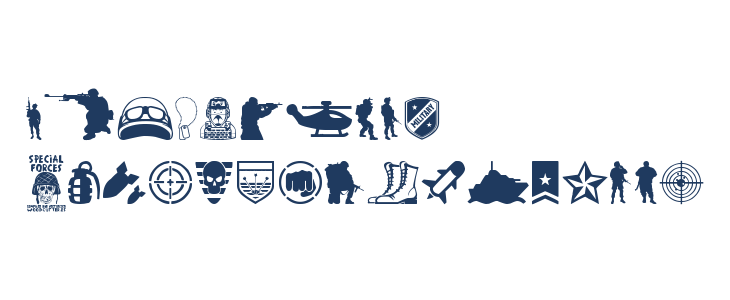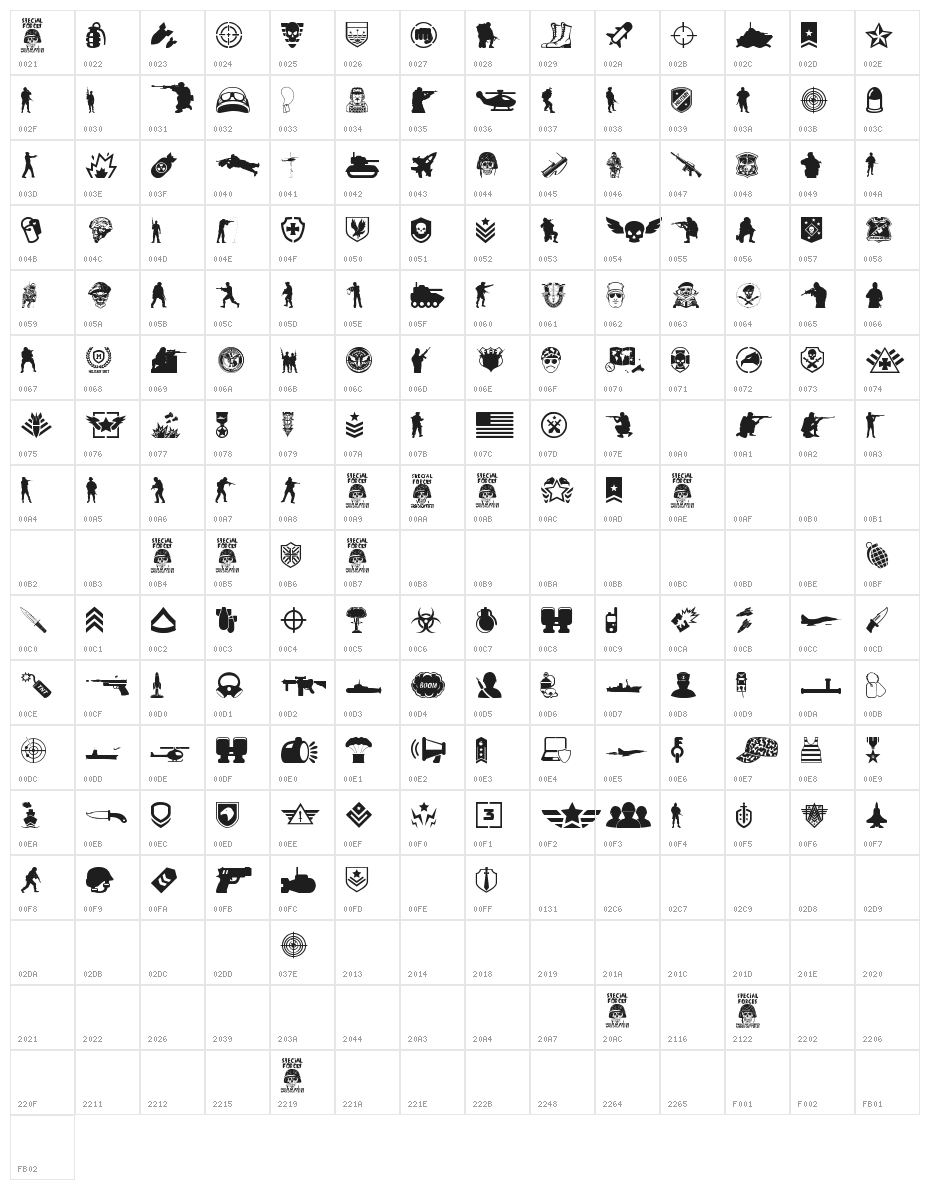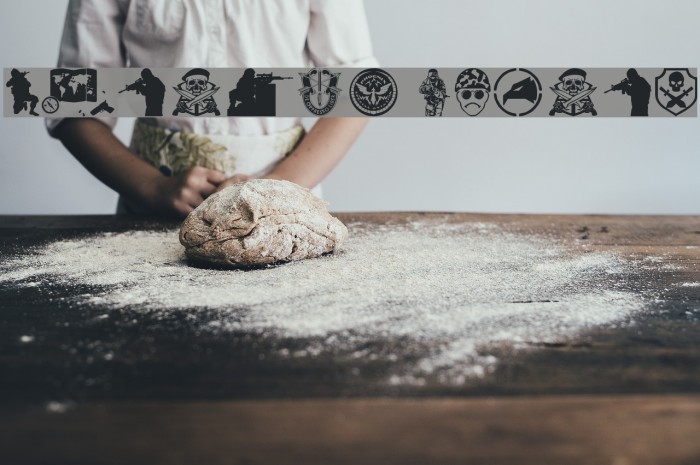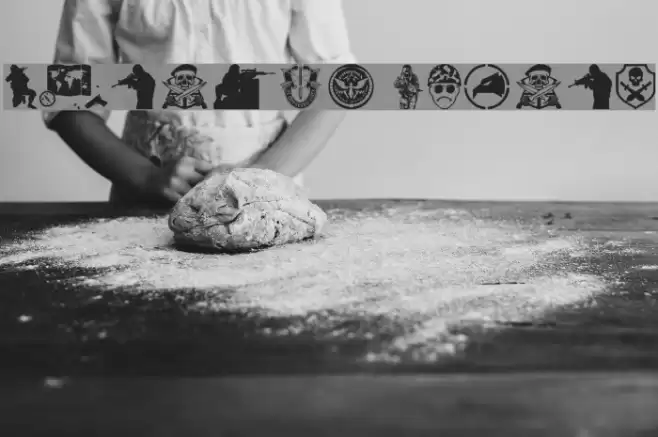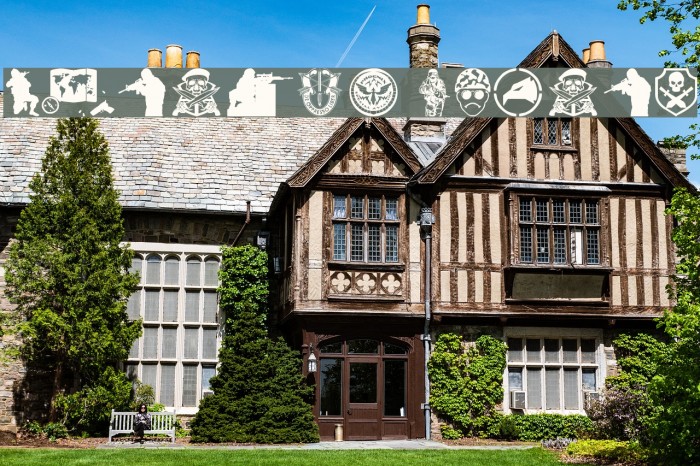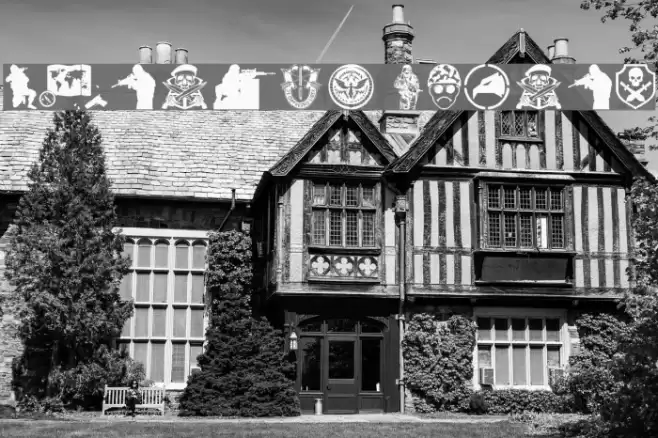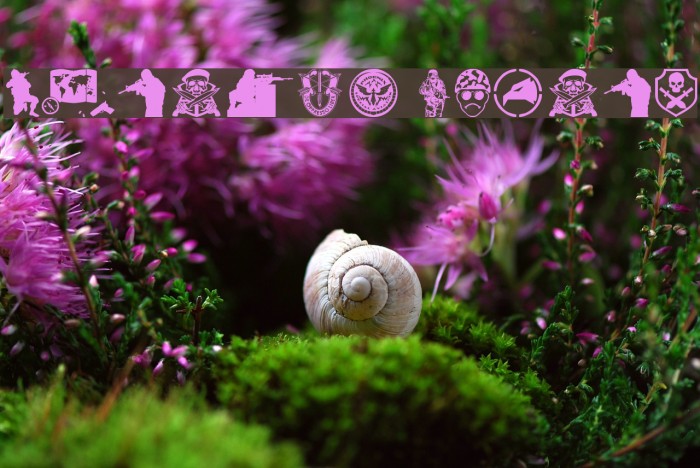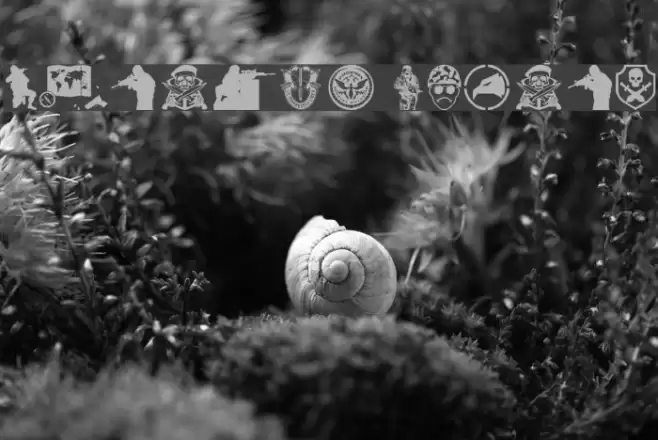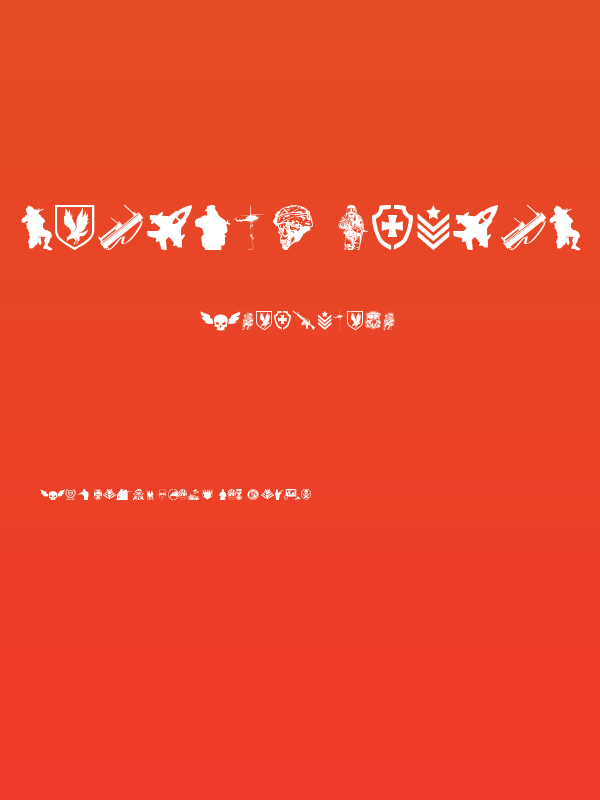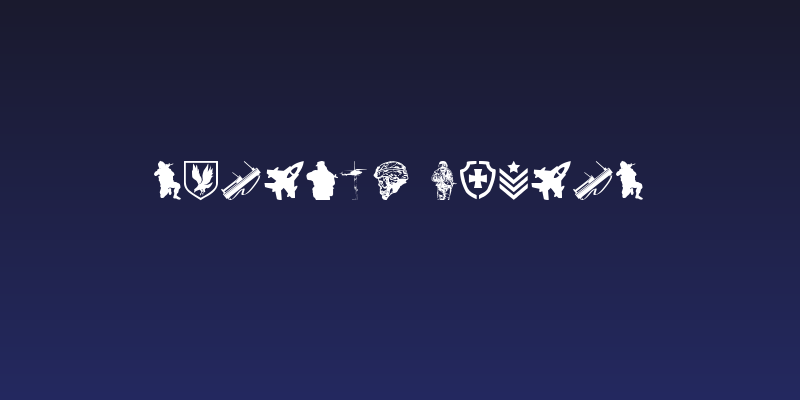
Special Forces Font
Special Forces Description
A highly decorative, military-themed dingbat font featuring silhouettes, badges, weapons, soldiers, insignias, and tactical gear icons in a bold, solid black style. The glyphs are pictorial rather than alphanumeric, each representing a different military or special forces motif.
| Overall Style | Decorative, Thematic, Military |
| Use Case | Logos, Icons, Themed graphics, Posters |
| Proposed Projects | Posters, video game UI, military-themed branding, event flyers, apparel graphics, stencils. |